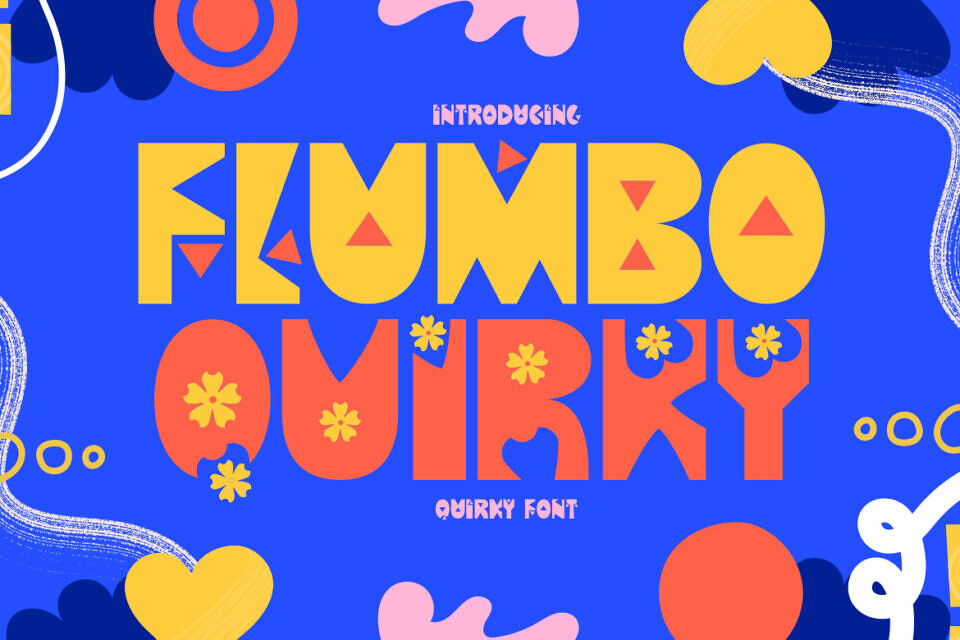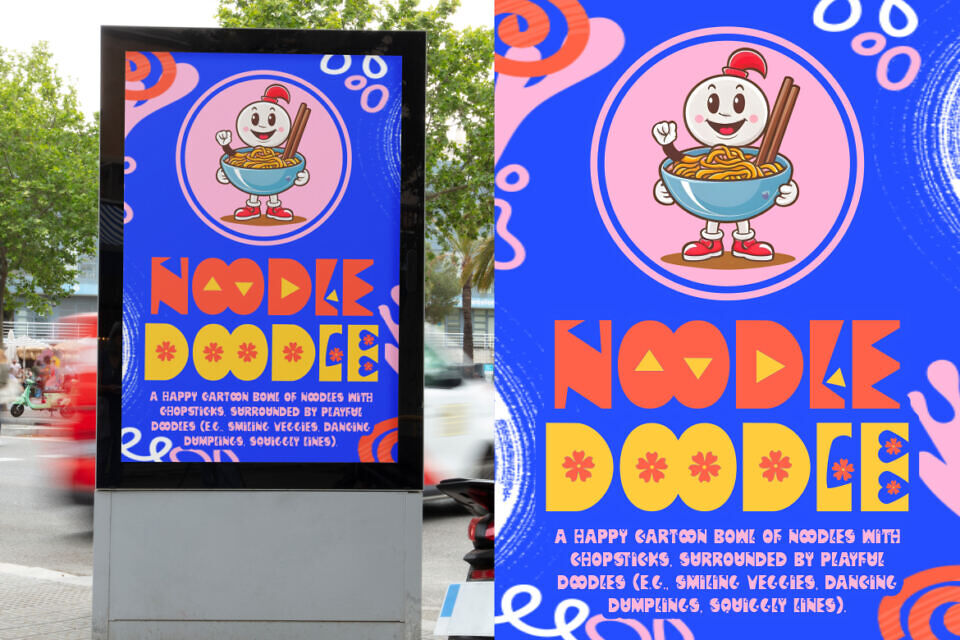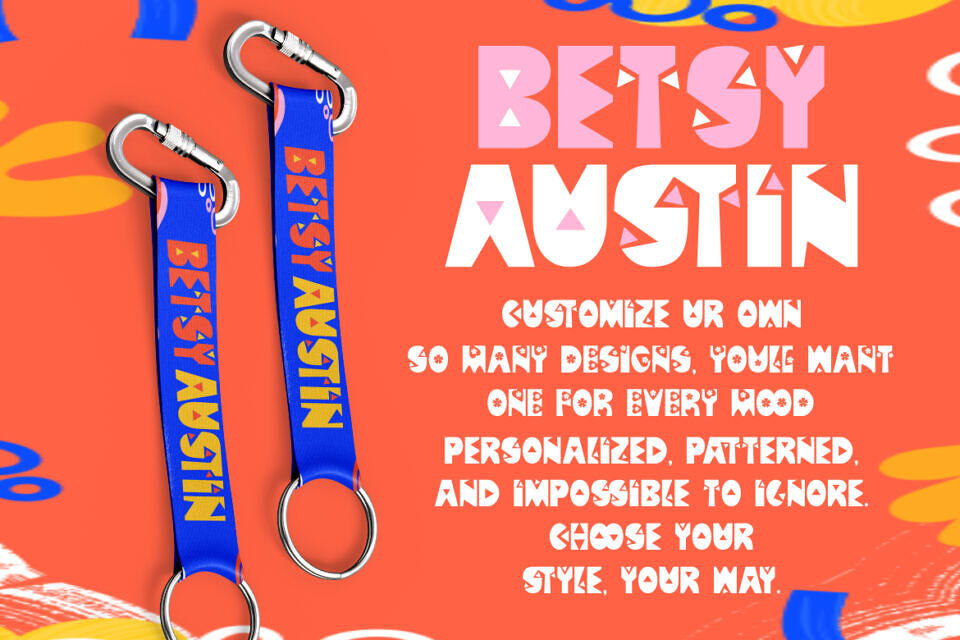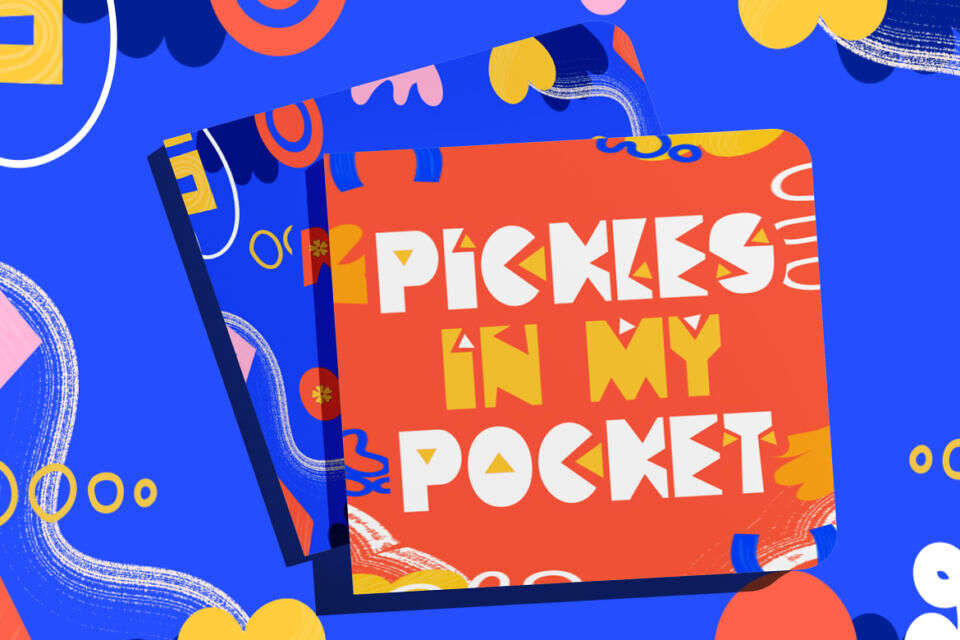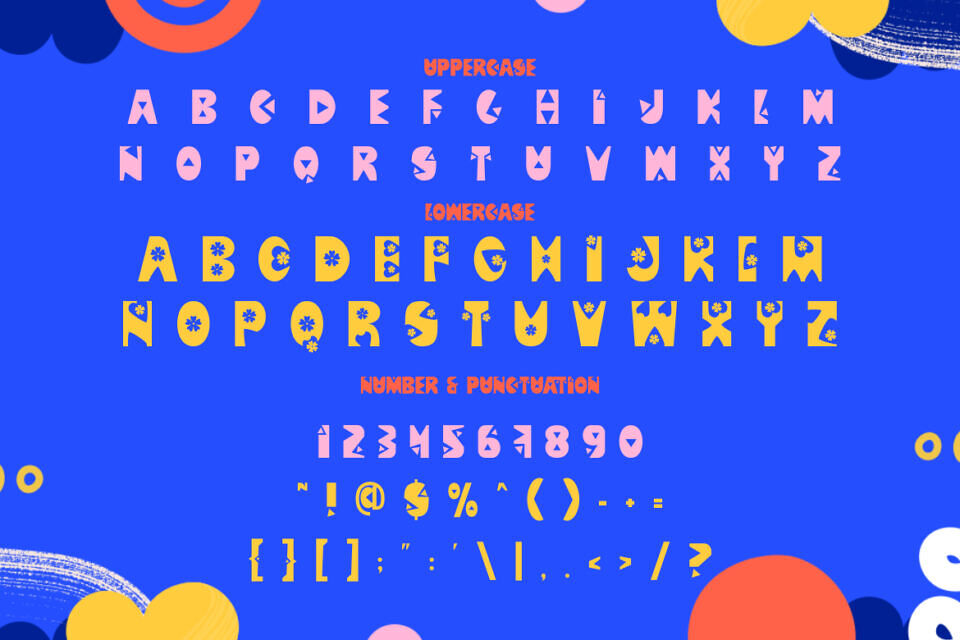
Flumbo Quirky Font
Flumbo Quirky is a vibrant, playful font that instantly lifts any design with its bold geometric shapes and fun energy. Each letter is creatively built with quirky triangles, rounded forms, and optional decorative elements like floral icons.
This font brings a retro-meets-modern vibe, perfect for projects that need personality, color, and a friendly twist. It features uppercase, lowercase, numbers, and full punctuation—designed with a fun attitude that works well in both digital and print formats. Whether you’re crafting an eye-catching title, designing a kids’ book cover, or building a joyful brand identity, Flumbo Quirky makes your message pop.